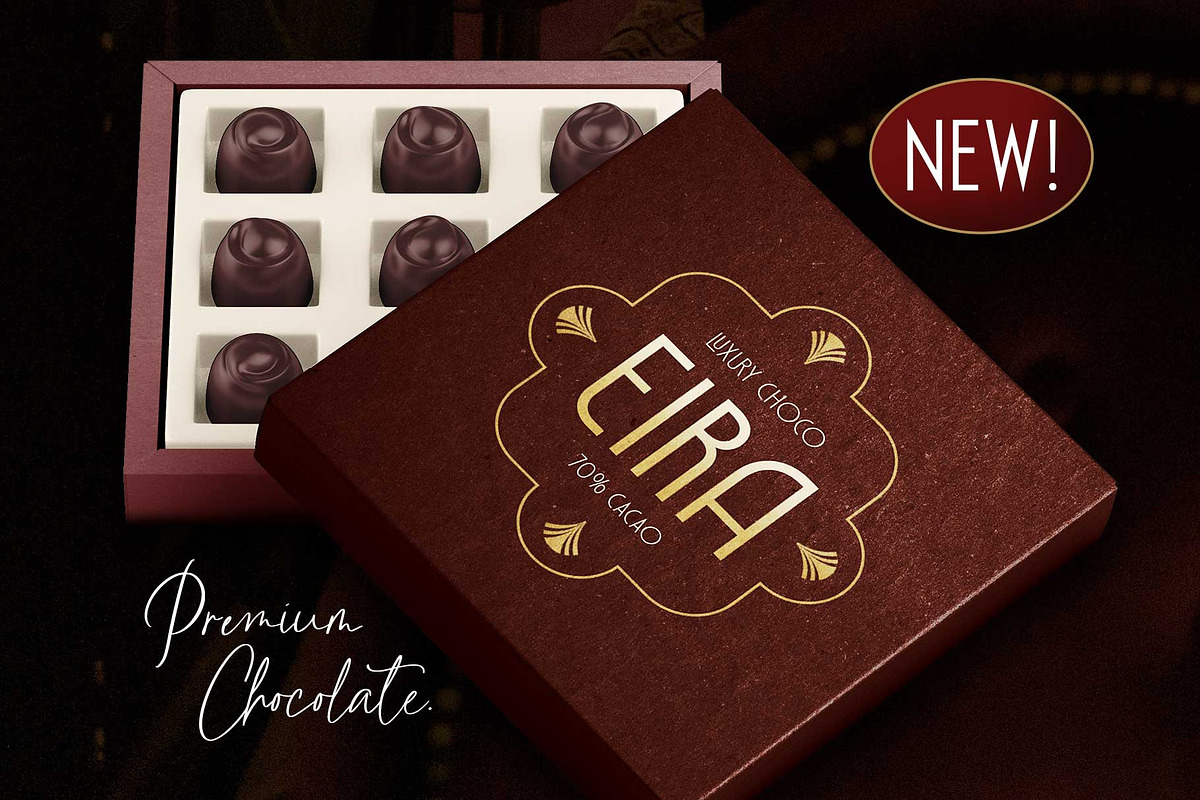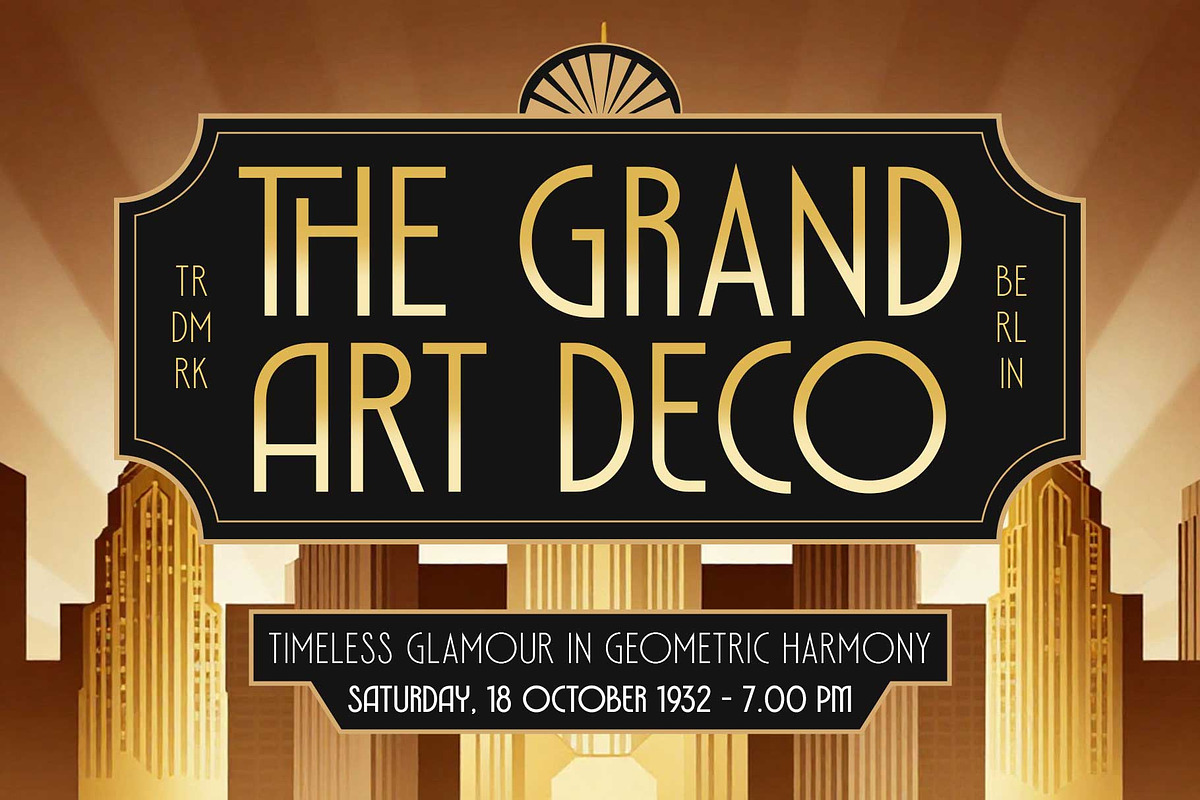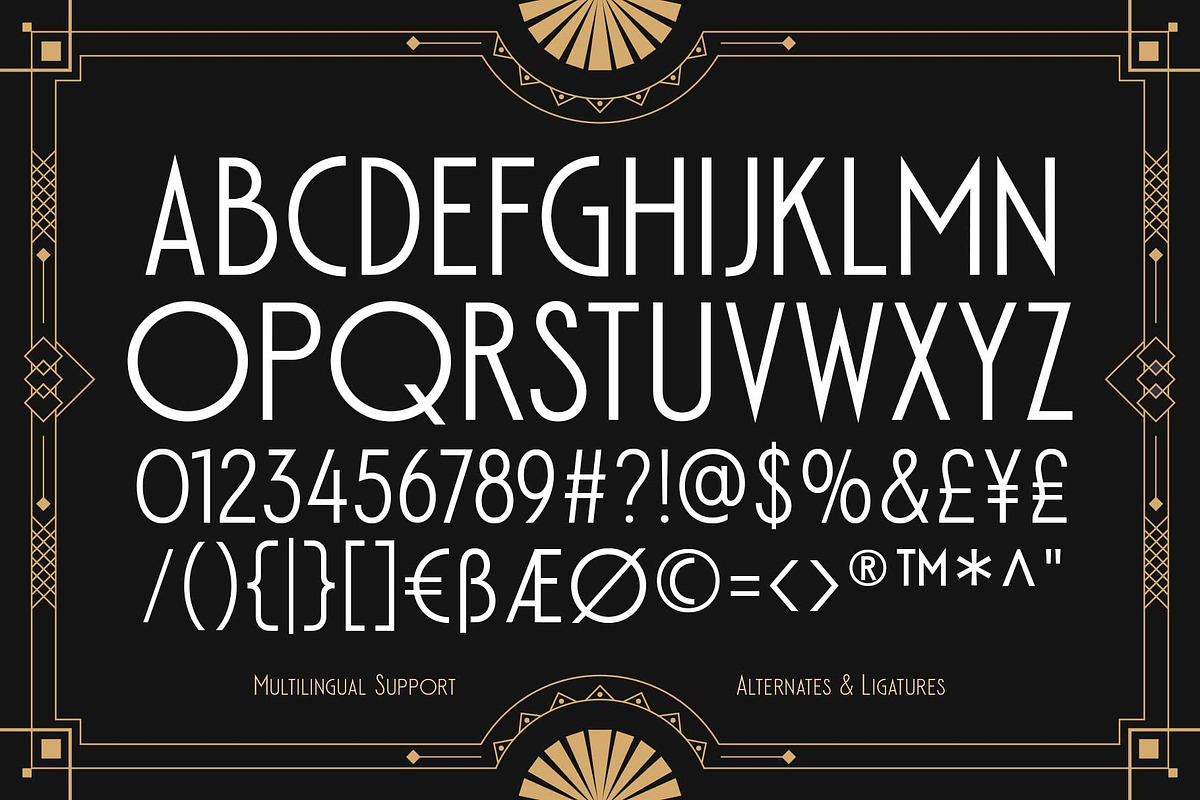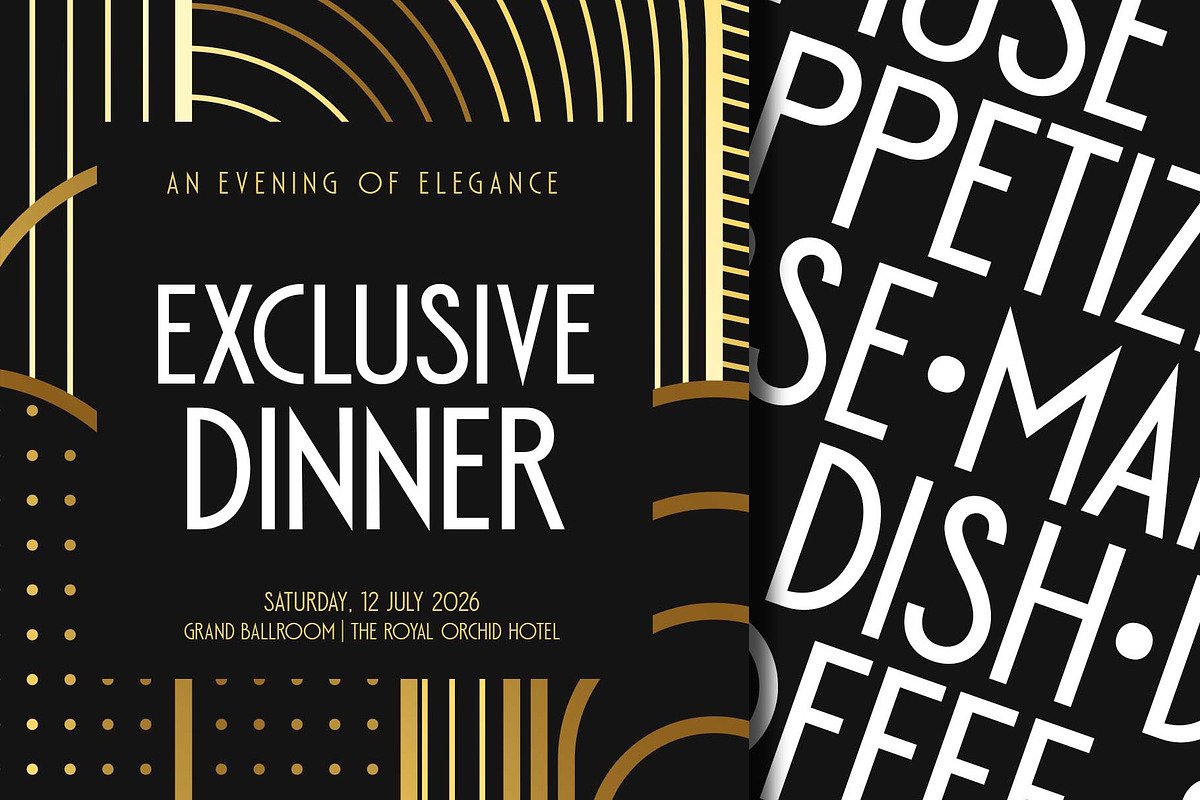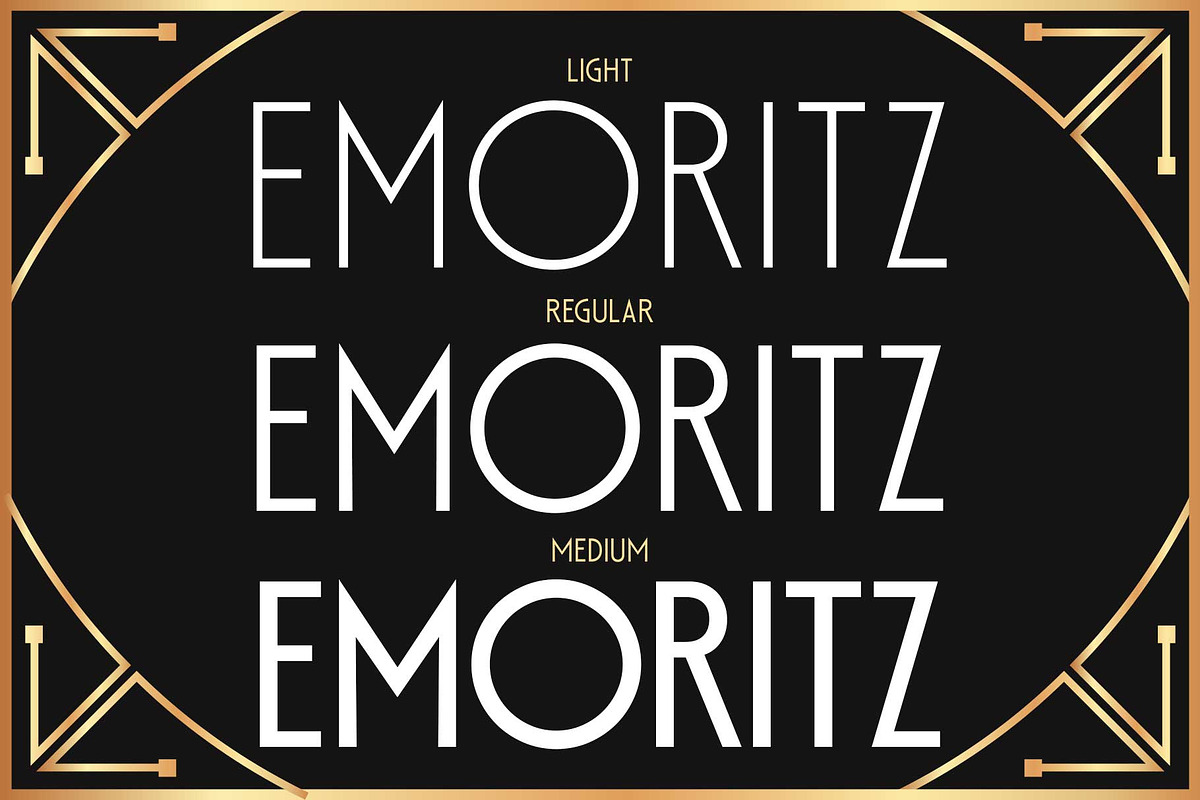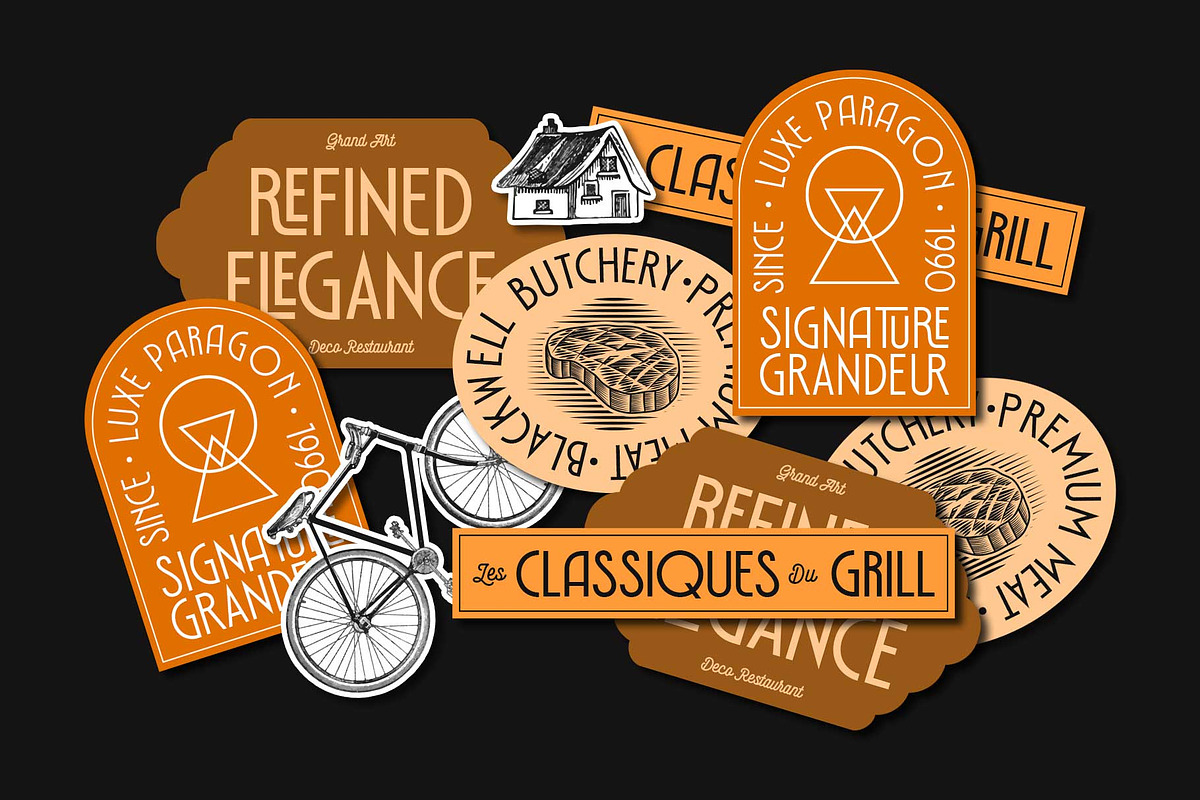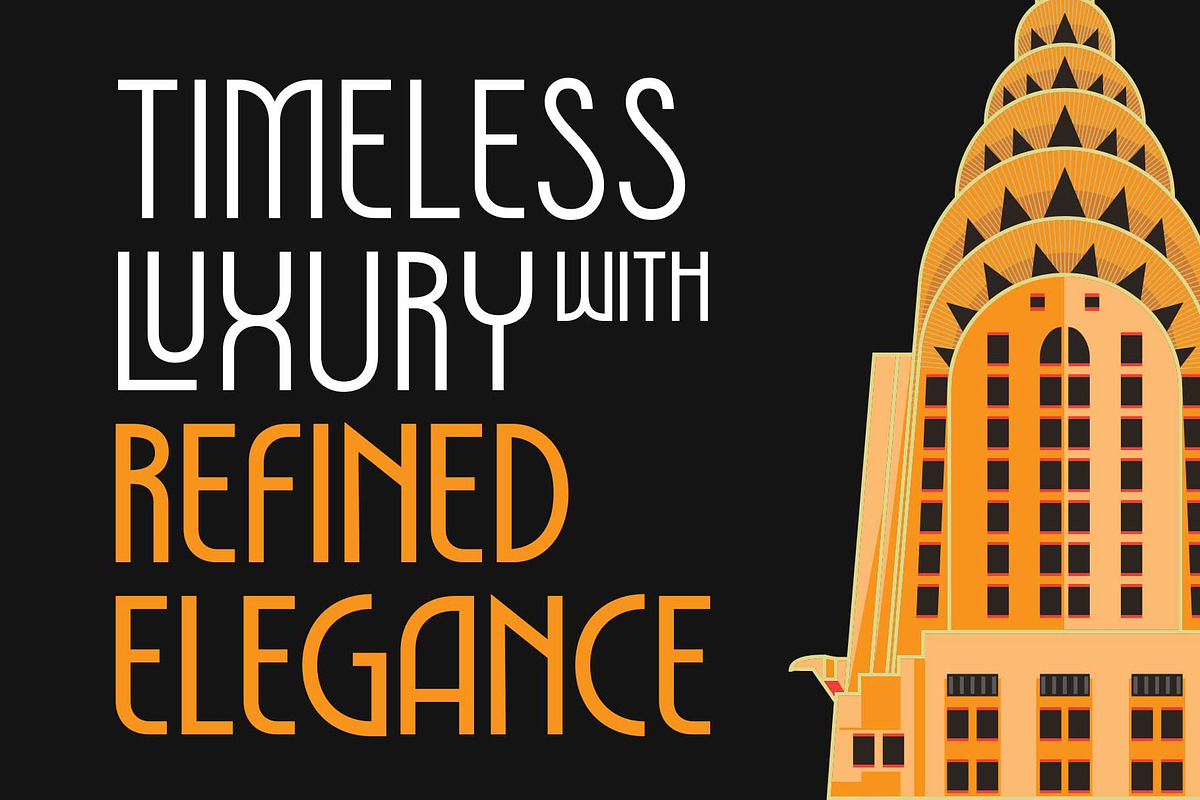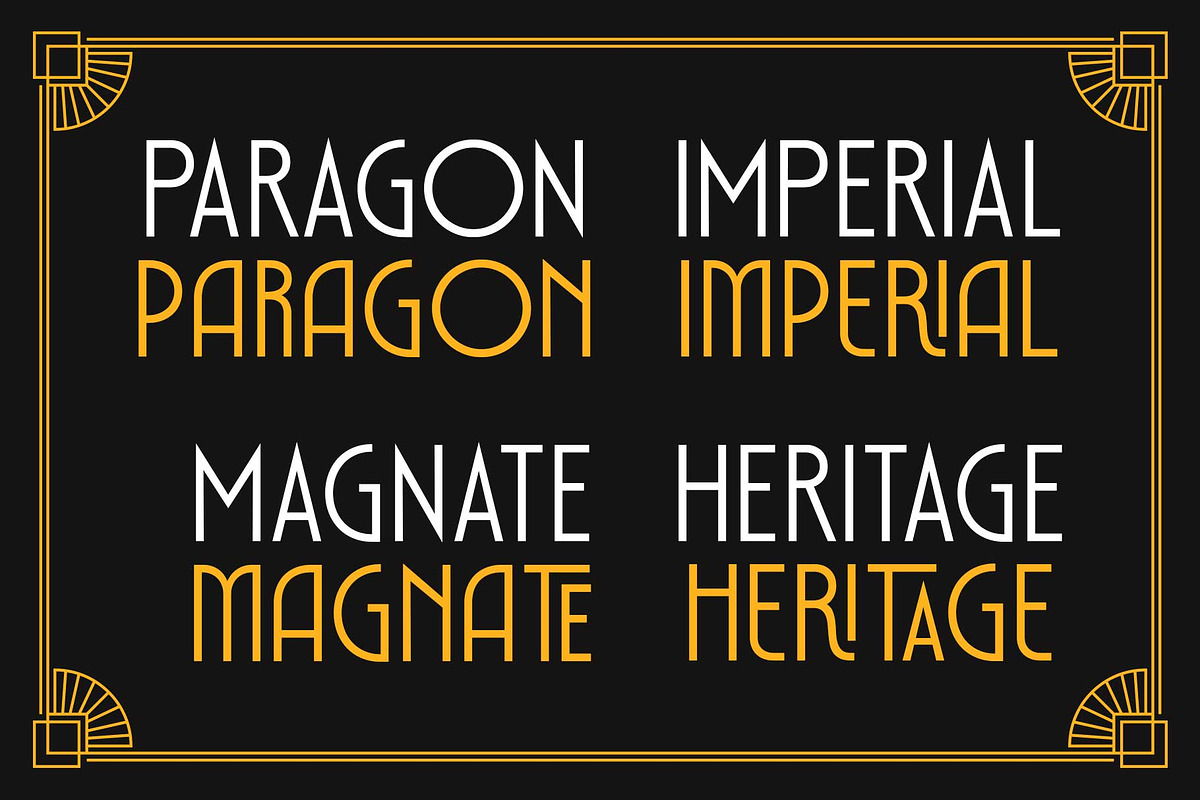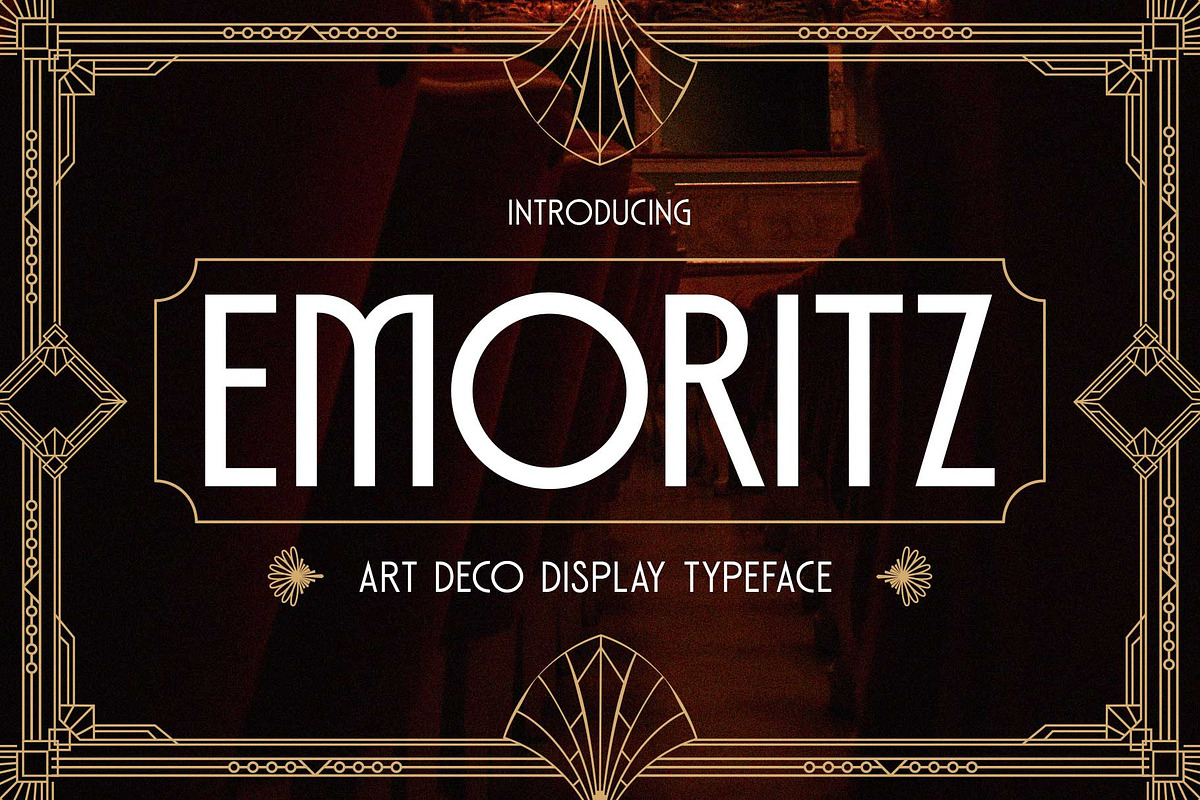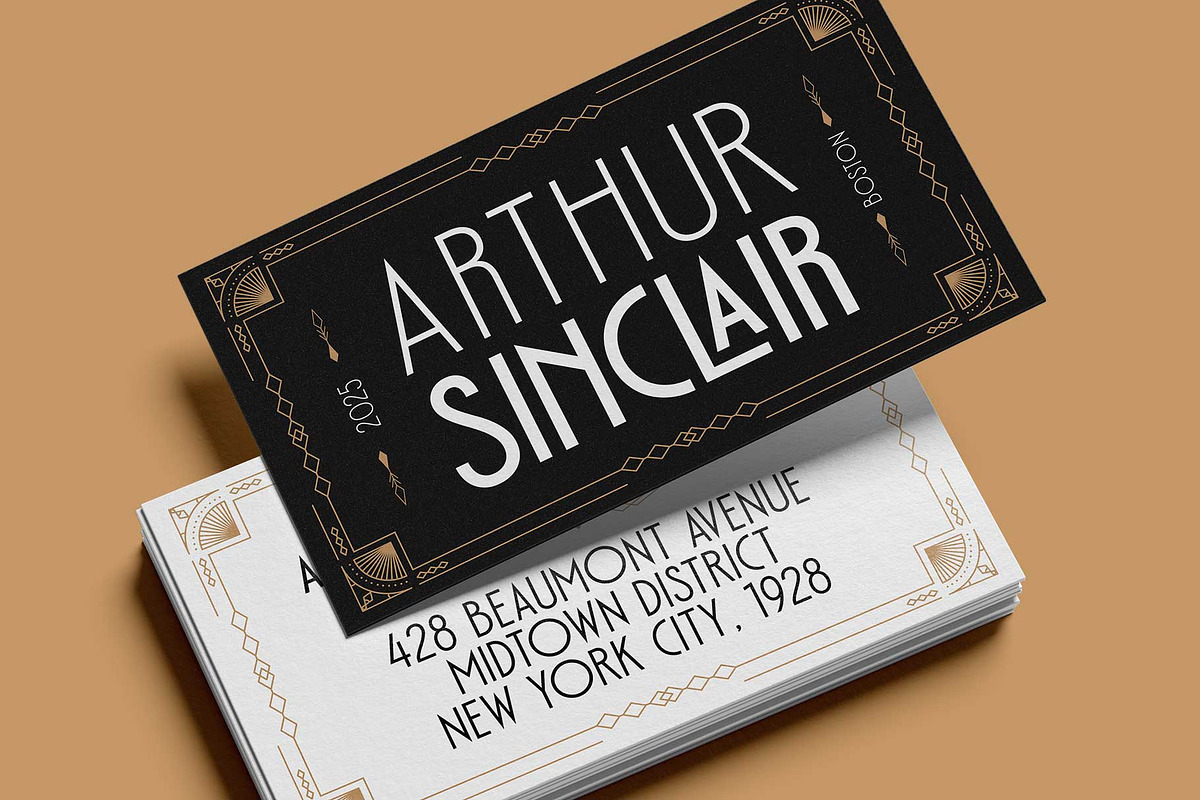
Art Deco Style - Emoritz
Emoritz is a display font, inspired by the Art Deco style from the 1920s. Emoritz visualizes luxurious looks, elegance, and wealth. This font is an all-caps font designed with geometric shapes and firm strokes that gives a clear look and minimalist.
Emoritz also has some OpenType features and accented characters to give you many alternatives in your creative process. A great choice for your headline, title, label, editorial, logotype, quotes, typography, and more!
Emoritz provides three weights: Light, Regular, Medium.
- All-caps character set
- Stylistic alternates